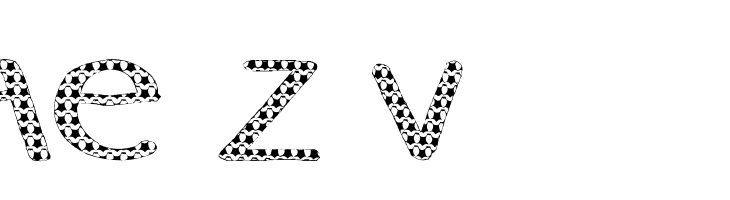
A bold, italic, and condensed font with a modern and dynamic style.
A bold, geometric font with sharp angles and a futuristic look.
A bold, geometric font with outlined characters and a futuristic style.
A bold, modern font with thick strokes and tight spacing, ideal for headlines.
A pixelated, retro-style font with a digital, nostalgic feel.
A bold, angular, and italicized font with a modern and edgy style.
Elegant cursive handwriting font.
A bold, geometric font with sharp, angular shapes and a modern style.
A bold, star-patterned decorative font with a playful and whimsical style.
A lively handwritten font with fluid, expressive strokes.
设计师偏爱 MesmerizeCdRg-Italic, Vampire Nation Regular, Blitzstrike Pro Regular, RobustaIISans-Regular and Enie,因为其造型干净、适用范围广—— 从品牌识别到落地页、海报都能胜任。